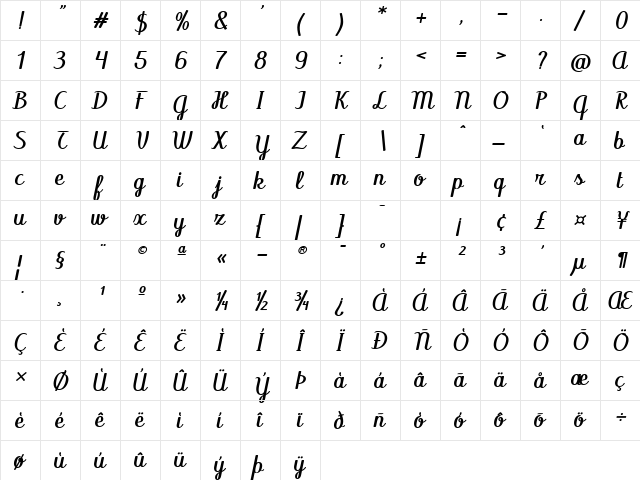
Mamzelle Exp is a composed and adaptable typeface that performs quietly and consistently across a wide range of design contexts. The slanted form adds forward momentum and visual energy.
Pro Tip: Use Mamzelle Exp for emphasis, pull quotes, and subheadings where its slanted energy can add rhythm to the layout.